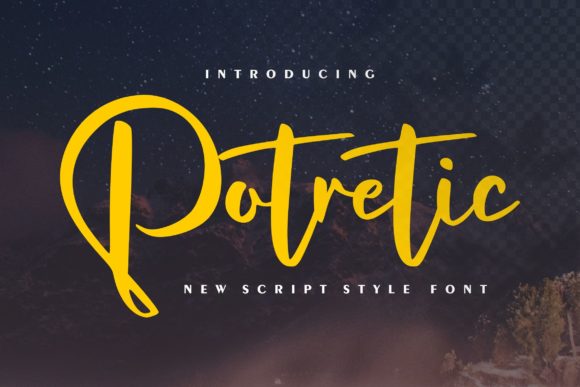
Welcome to the world of Potretic Font, a captivating script font that will transform your creative vision into an extraordinary reality. Envision your words magically dancing on the canvas, each letter a delicate brushstroke, painting a tale of elegance and charm. With Potretic Font, you possess the power to craft captivating logos that resonate with timeless appeal. Imagine your brand name adorned in this beautiful font, exuding an aura of sophistication that speaks volumes about your commitment to excellence.
Create stunning branding that leaves a lasting impression, where every element harmoniously blends together, telling a story that captivates and inspires. Let your invitations shimmer with a touch of elegance, as Potretic Font weaves its magic, transforming ordinary words into heartfelt expressions of love and joy. Enchant your stationery with a touch of whimsy, allowing your written words to dance across the page, carrying with them an air of timeless romance.
Step into the realm of wedding design and let Potretic Font transform your special day into an unforgettable affair. From save-the-dates that set the tone for a magical celebration to menus that tantalize the taste buds, every element will exude an air of sophistication and charm. Elevate your social media presence with captivating posts that demand attention, where each word, adorned in the artistry of Potretic Font, becomes a visual masterpiece.
Explore the endless possibilities that await you with Potretic Font, a versatile masterpiece that will ignite your creativity and elevate your designs to new heights. Seize this opportunity to make an unforgettable statement, to create a lasting legacy of beauty and elegance. Embrace the power of Potretic Font and transform your creative dreams into tangible realities today.